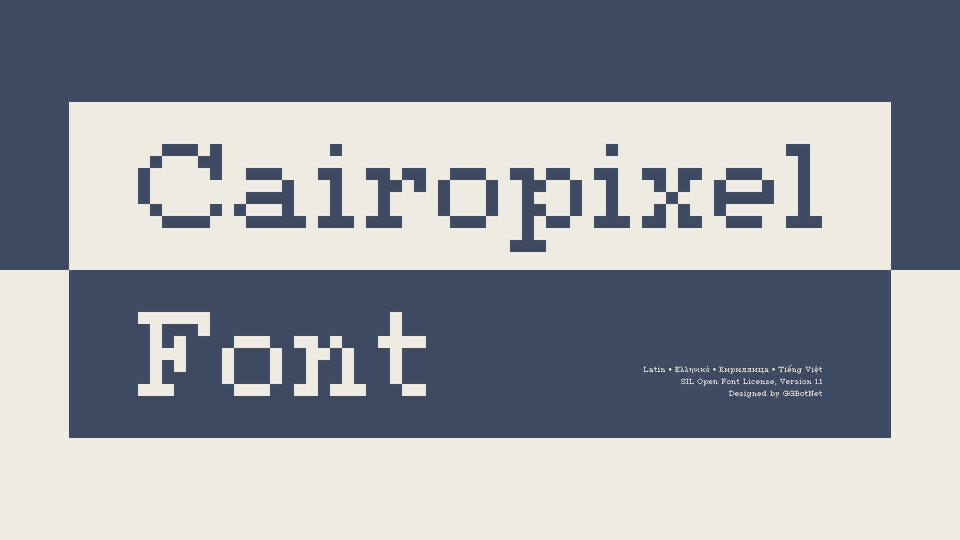
Cairopixel is a free, precision-crafted pixel font by GGBotNet. Merging nostalgic 8-bit charm with modern utility, this serif-style typeface ensures crisp legibility for game interfaces and retro graphic design.
Uniquely robust, it features comprehensive multilingual support, covering Latin, Greek, Cyrillic, and Vietnamese character sets. Released under the SIL Open Font License, Cairopixel is completely free for commercial use.